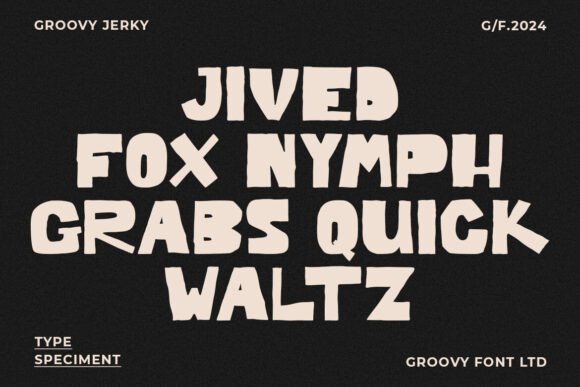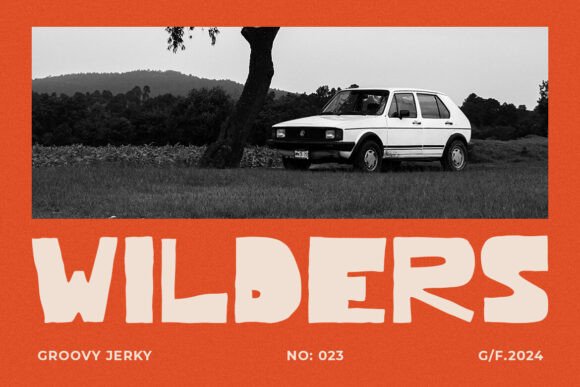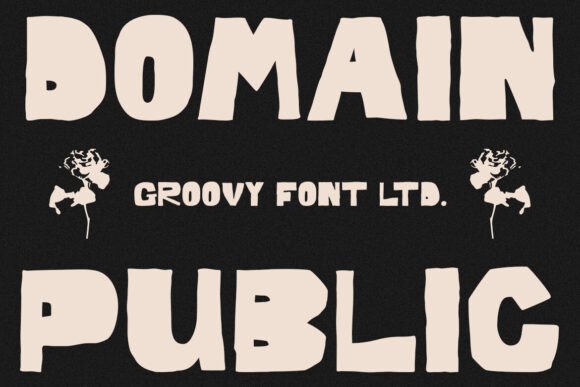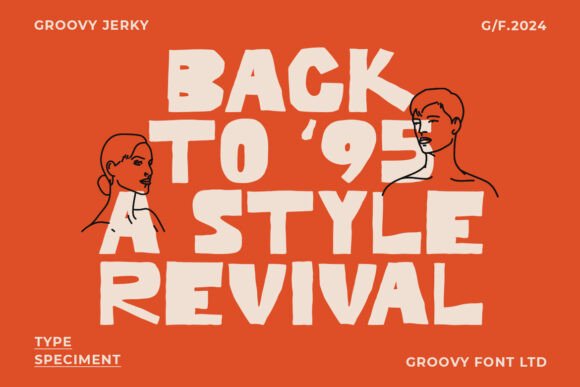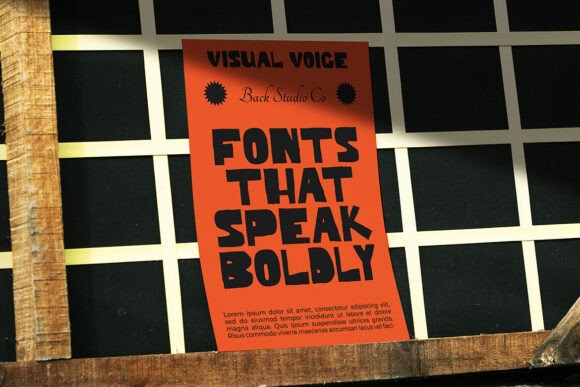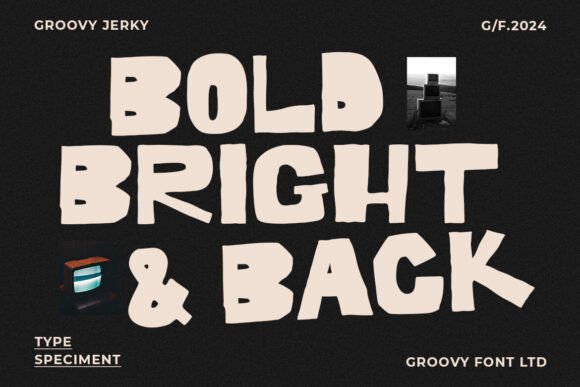
The Groovy Jerky Font: A Retro Revival for Your Designs
This organic hand-drawn font exudes a charming retro and vintage aesthetic that’s perfect for designers, crafters, and creative hobbyists looking to add a touch of whimsy to their projects. In this article, I’ll share my honest review of Groovy Jerky, provide a practical guide on how to use it, and explore similar fonts that you might enjoy.
- ✅ Unique and distinctive appearance that’s perfect for creating a vintage-inspired look
- ✅ Organic texture adds a sense of warmth and authenticity to any project
- ✅ Exudes a charming retro and vintage aesthetic that’s sure to turn heads
- ✅ Perfect for branding, packaging, and graphic design projects that require a touch of whimsy
Small Quirks and Limitations 🤔
- ⚠️ Limited character set, which may not be suitable for projects that require a wide range of characters
- ⚠️ May not be the best choice for body text, as it’s more suited for headlines and titles
How to Use Groovy Jerky: A Practical Guide
- Experiment with OpenType features, such as glyphs and stylistic alternates, to add more character to your design
Designer Inspiration: The Story Behind Groovy Jerky
The Groovy Jerky font was created by a talented designer who’s passionate about creating unique and distinctive typography. Inspired by the retro and vintage aesthetic of the 1960s and 1970s, this font is perfect for designers who want to add a touch of whimsy to their projects.
Q: What is the Groovy Jerky font?
A: The Groovy Jerky font is an organic hand-drawn font that exudes a charming retro and vintage aesthetic.
Q: Is Groovy Jerky suitable for body text?
A: No, Groovy Jerky is more suited for headlines and titles, as it’s a display font that’s designed to grab attention.
Q: Is Groovy Jerky easy to read?
A: Yes, Groovy Jerky is a clear and legible font that’s easy to read, even at smaller font sizes.